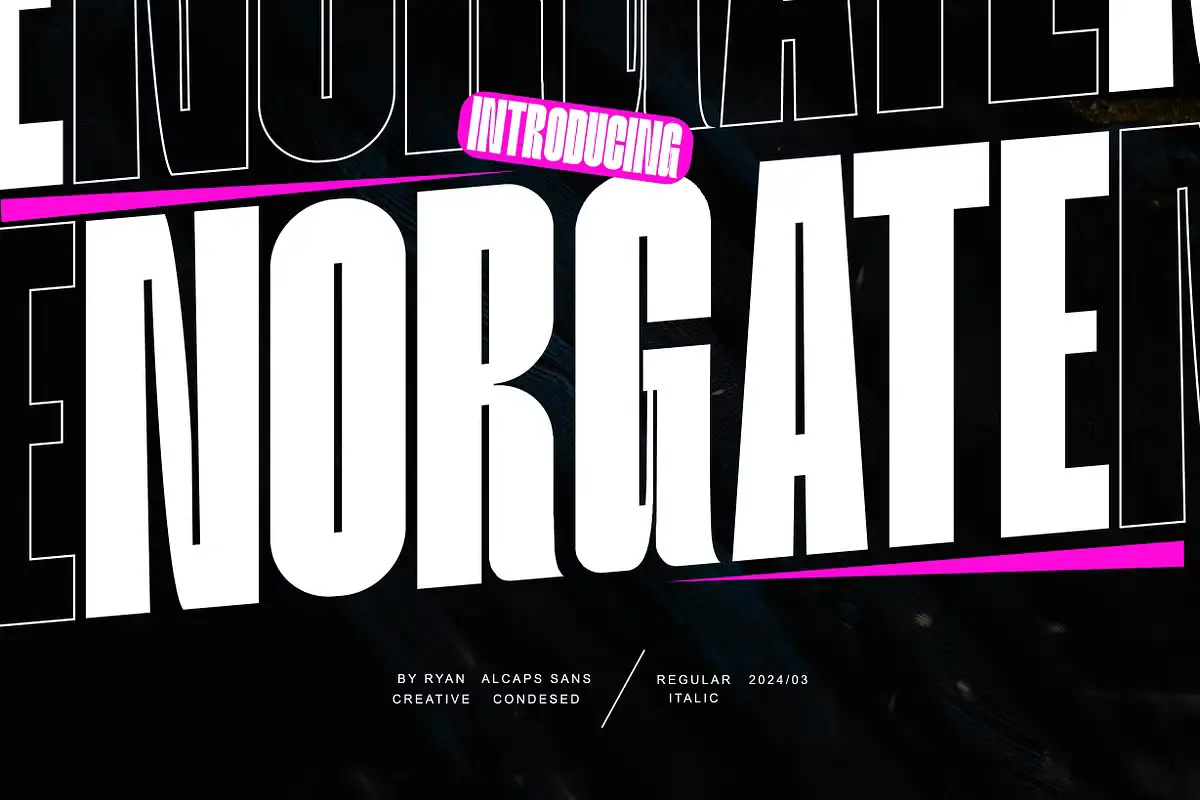
Norgate is a free thick condensed font designed for simplicity and impact. With its dense, tall structure, Norgate offers a minimalist aesthetic that’s easy to read. This font fits seamlessly into fashion media, posters, magazines, typography, and various other digital formats, perfect for modern and contemporary designs. Get creative with a font that’s both stylish and versatile.
Norgate – Free Thick Condensed Font